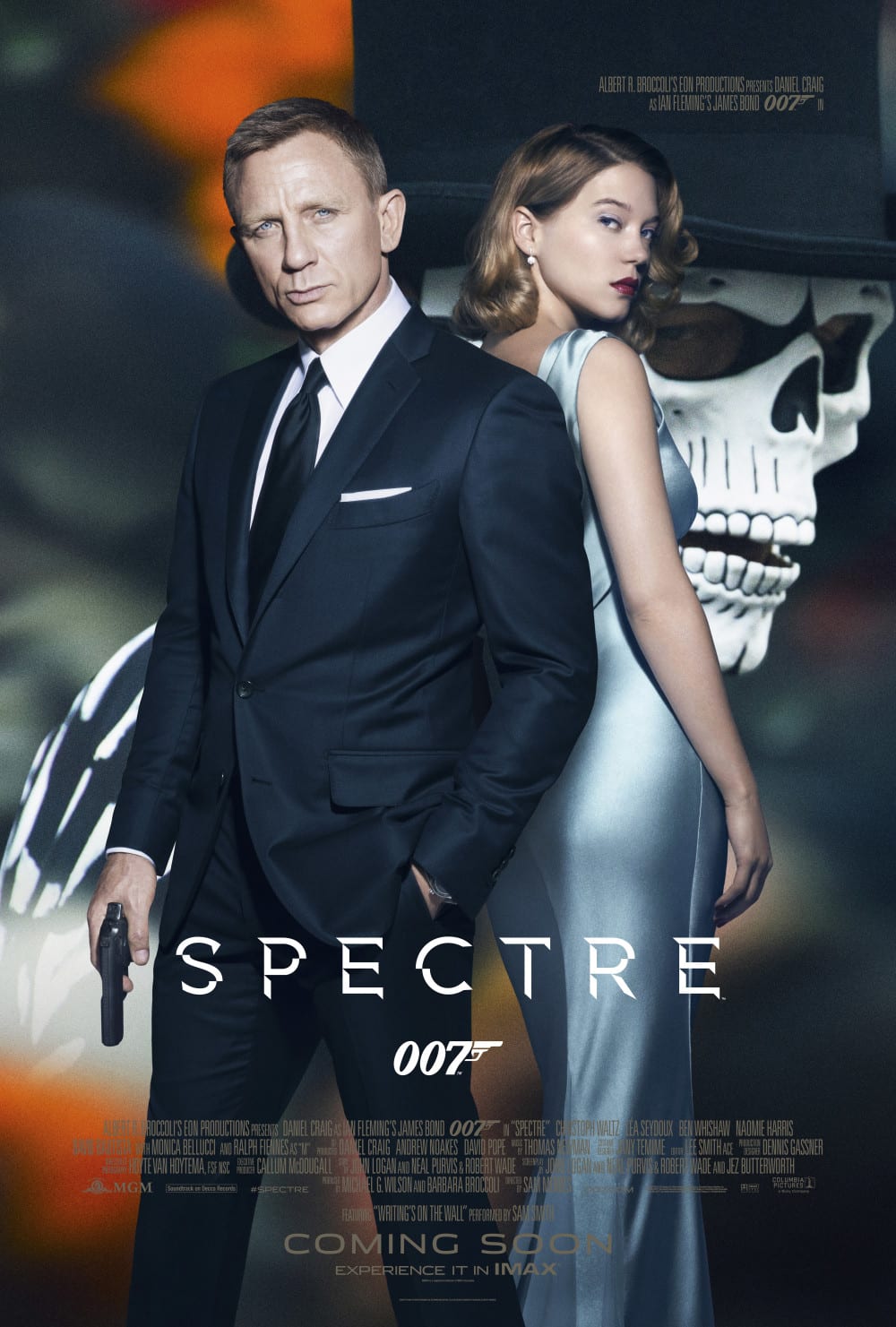
Spectre (film) Font
ActionSpectre is a 2015 action-thriller film that is the twenty-fourth installment in the James Bond film series. It follows secret agent James Bond (played by Daniel Craig) as he embarks on a mission to uncover the existence of a mysterious organization known as Spectre.
To replicate the typography of the Spectre movie's title, DeviantArt user Sostopher developed the Spectre font. It is available in capital letters and numerals and you can download it in the Fonts Used Section.